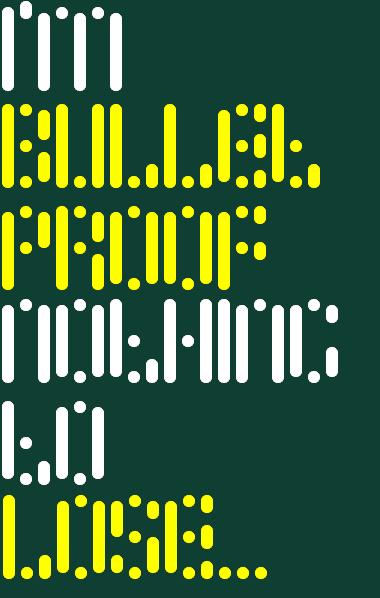
HELP! I need suggestions for the T. Mine's is not so correct.
Great! How about this for T?
Yeah, Yautja's T is great! Good font also. 10/10
I'm with Yautja. I like this kind of "simple" fonts. And you can try to put the central bar of the "E" like the one of the "F" and increase a bit the space between glyphs too, IMHO. Play with it. It smells like a great font!
@yautja: Great, but, if you look at the characters, all of them are made by the same way: Long bar, dots and long bar... Thanks anyway and sorry for my bad English
@elmoyenique: Thanks, I'll play with it